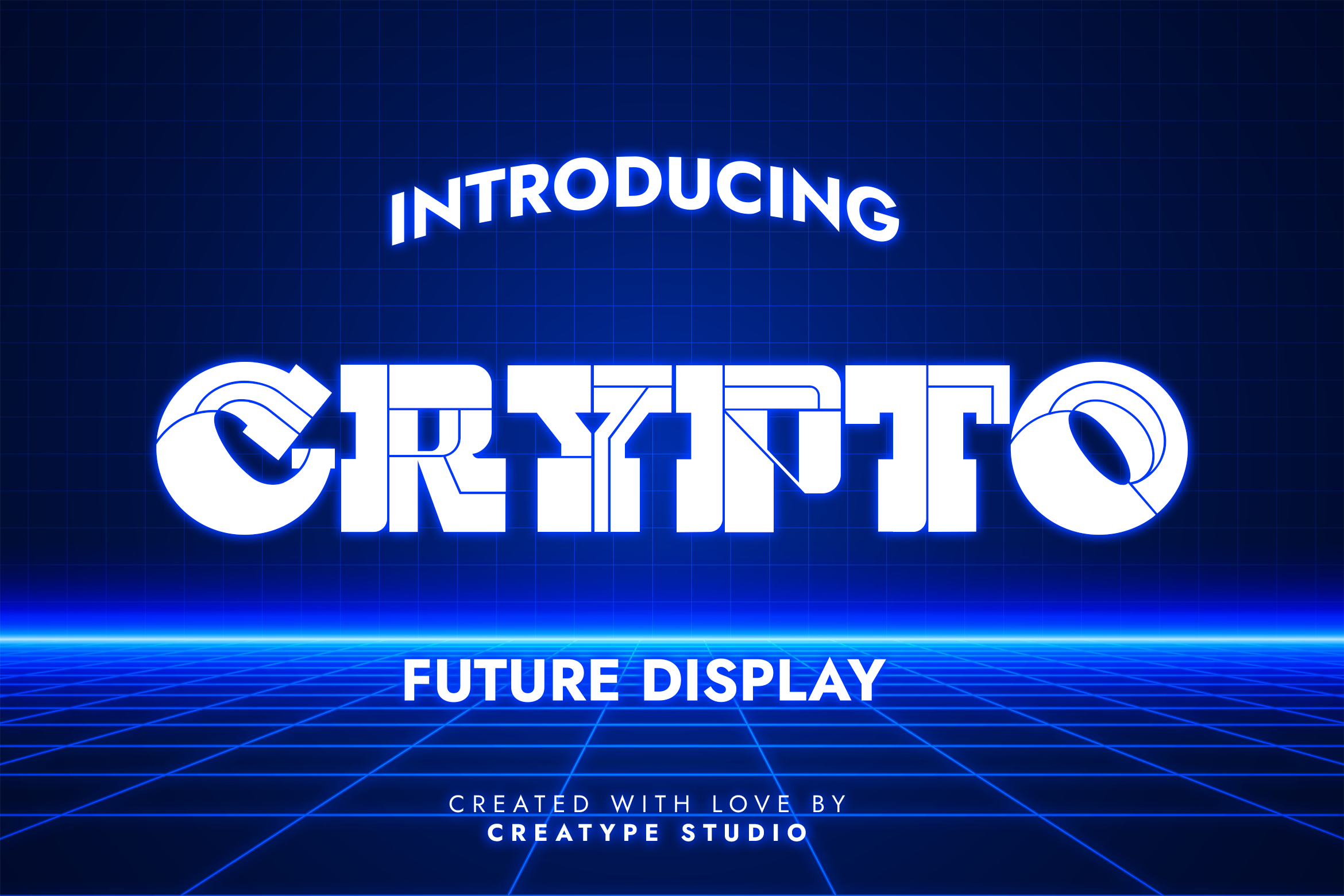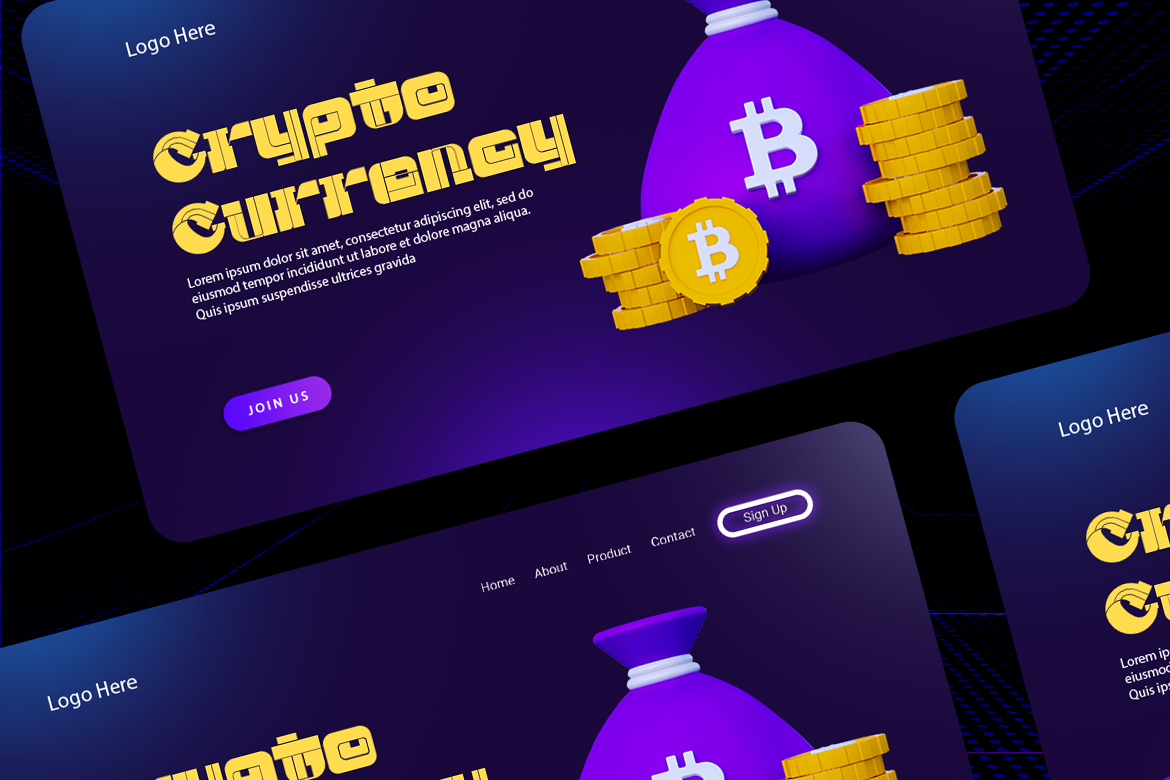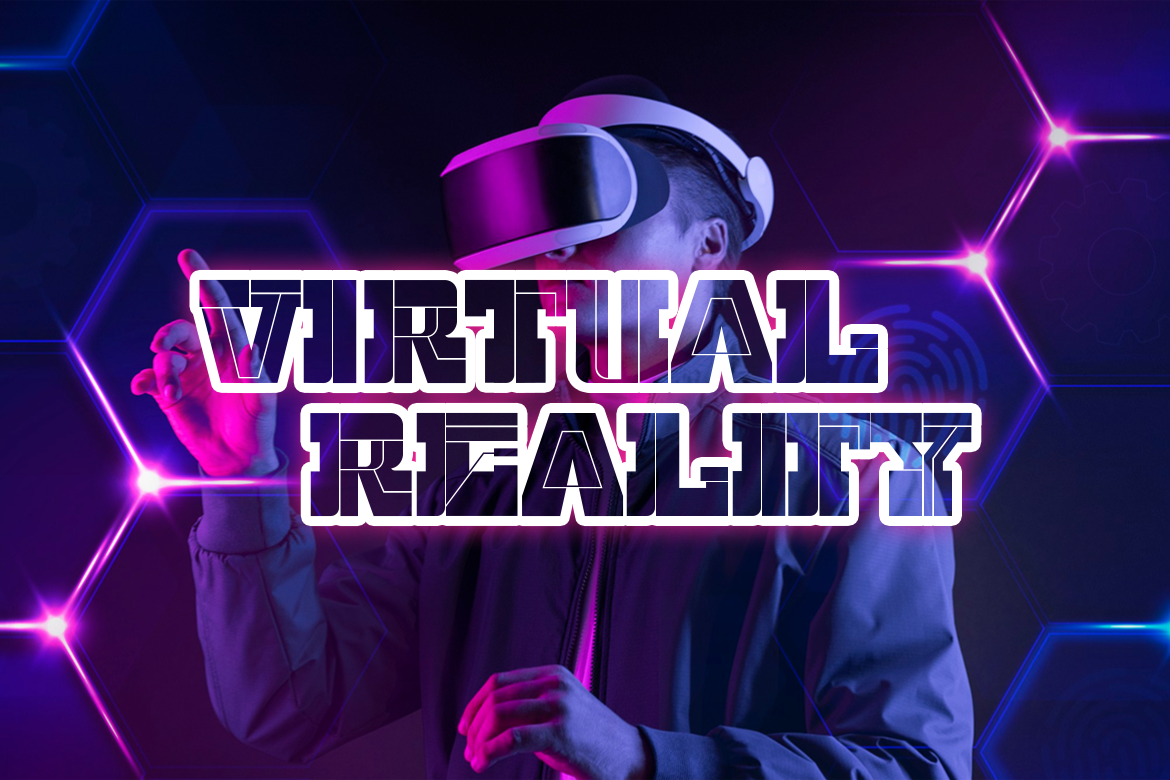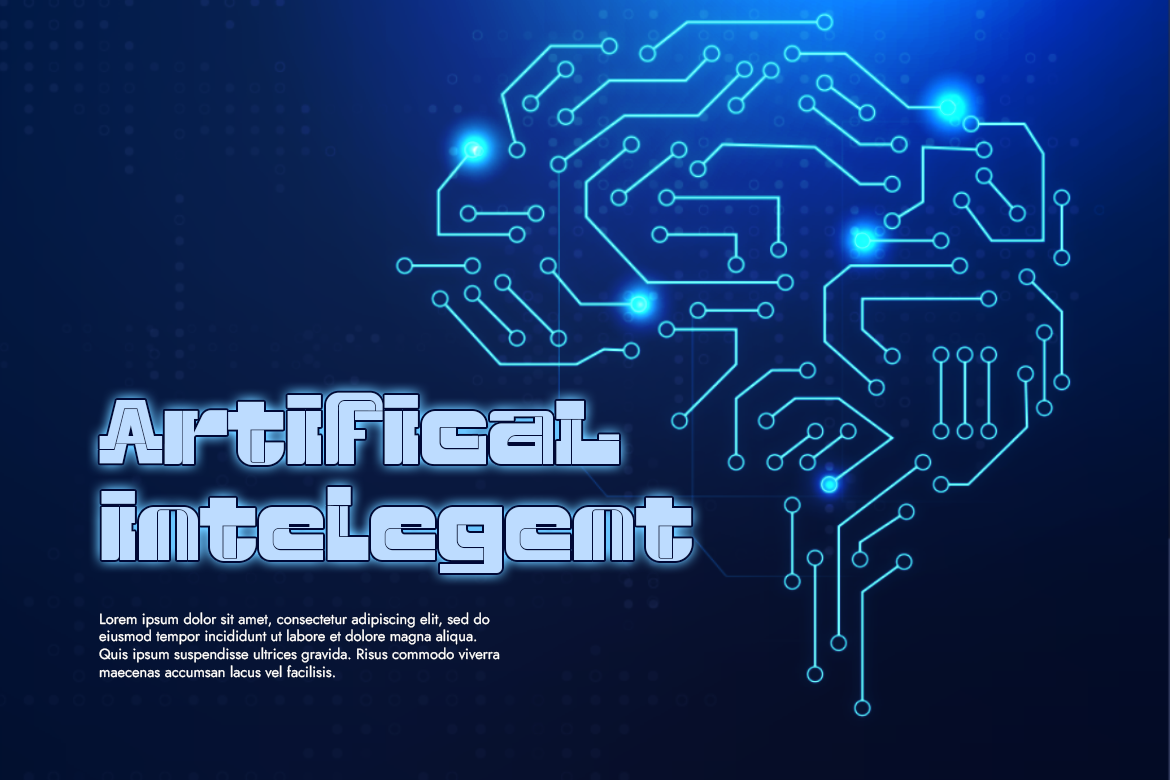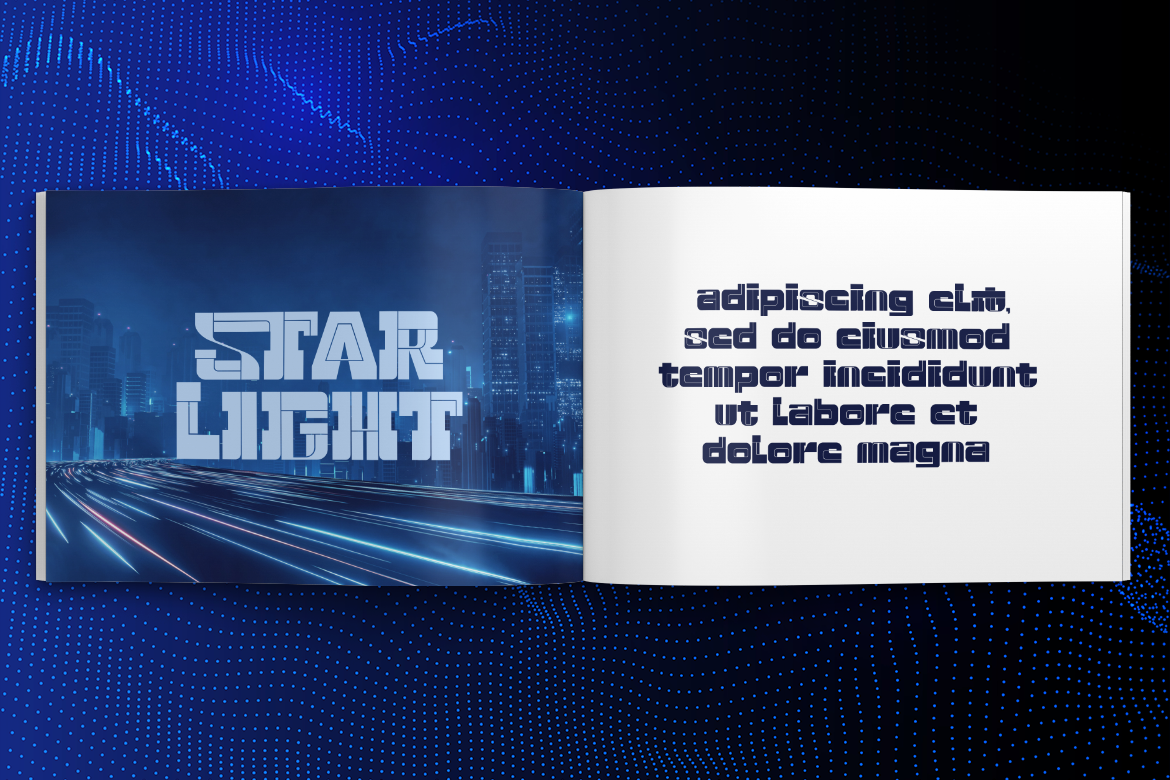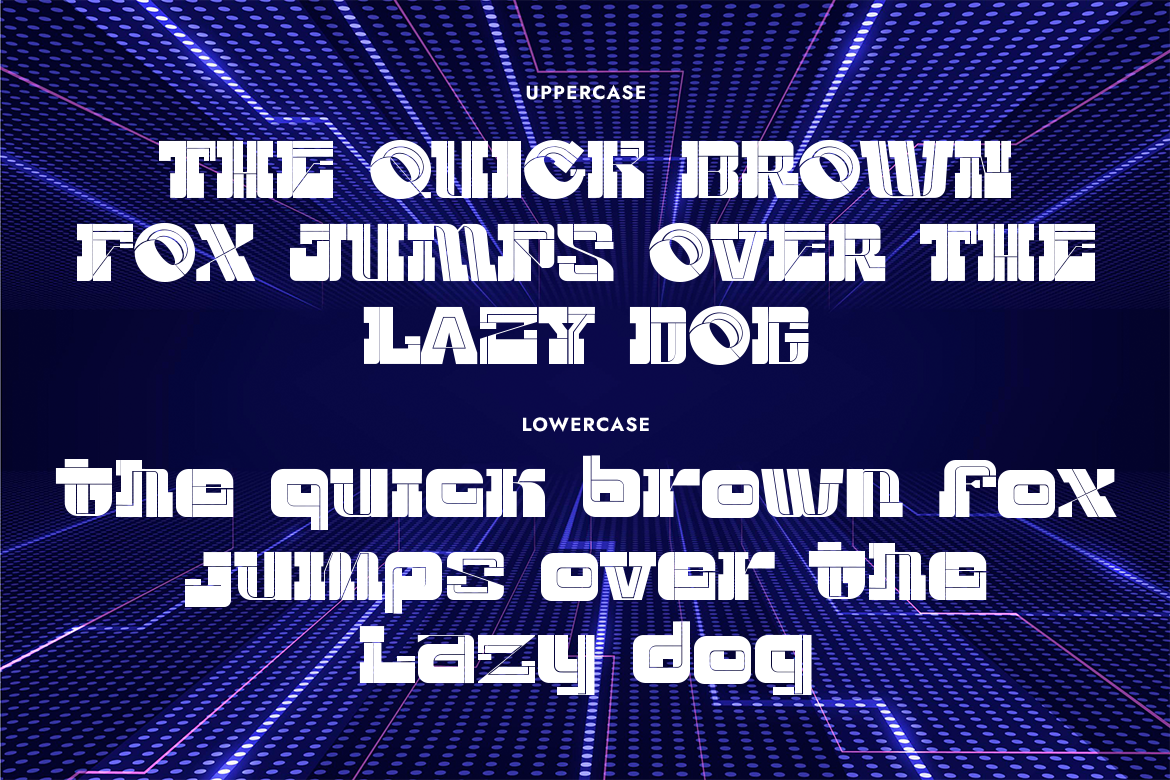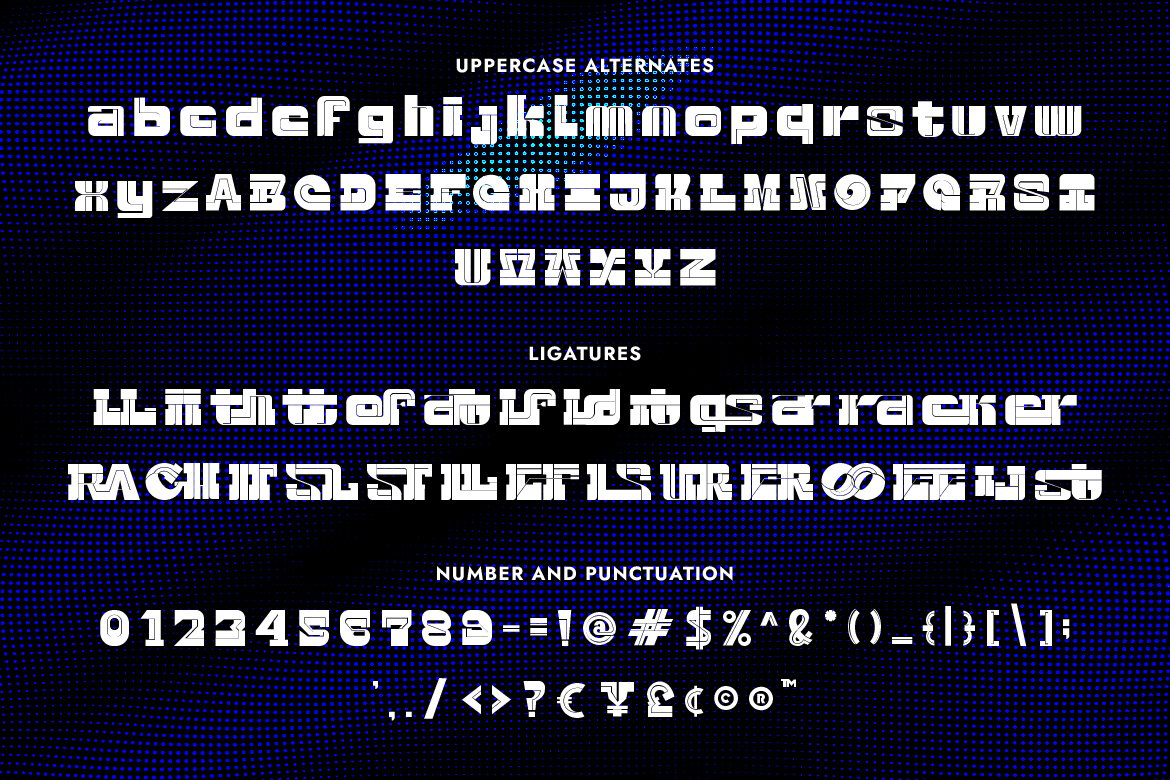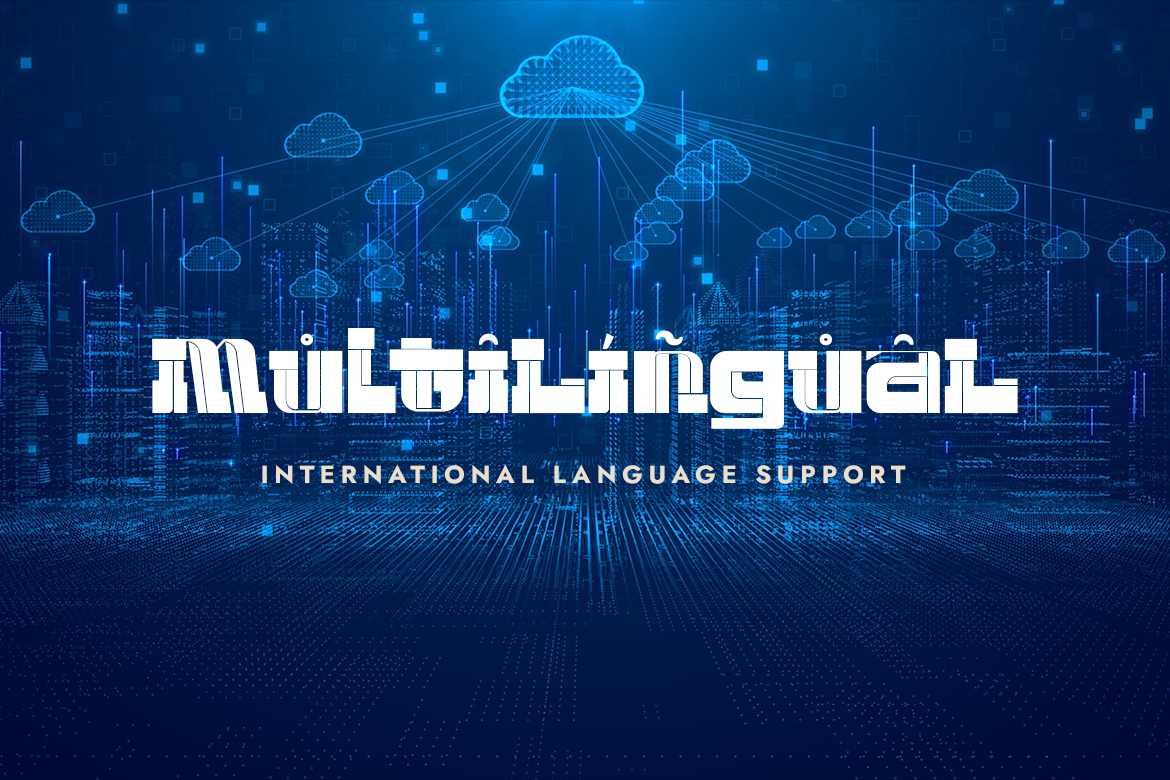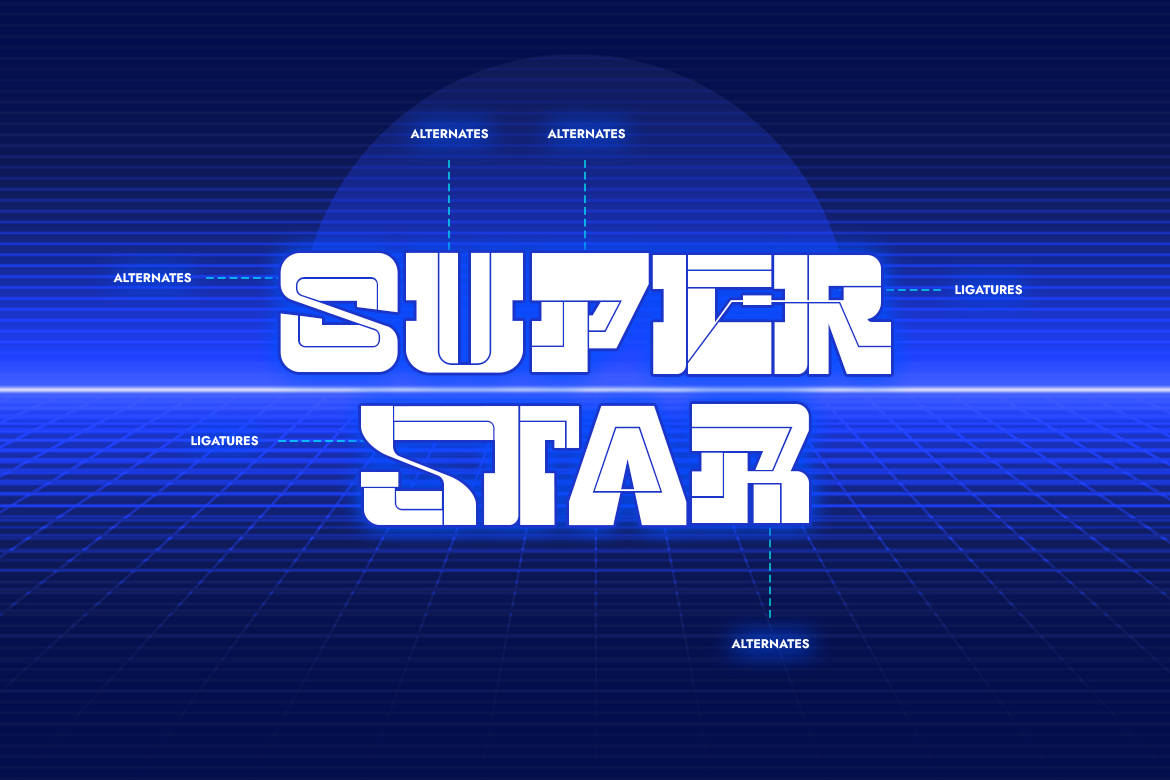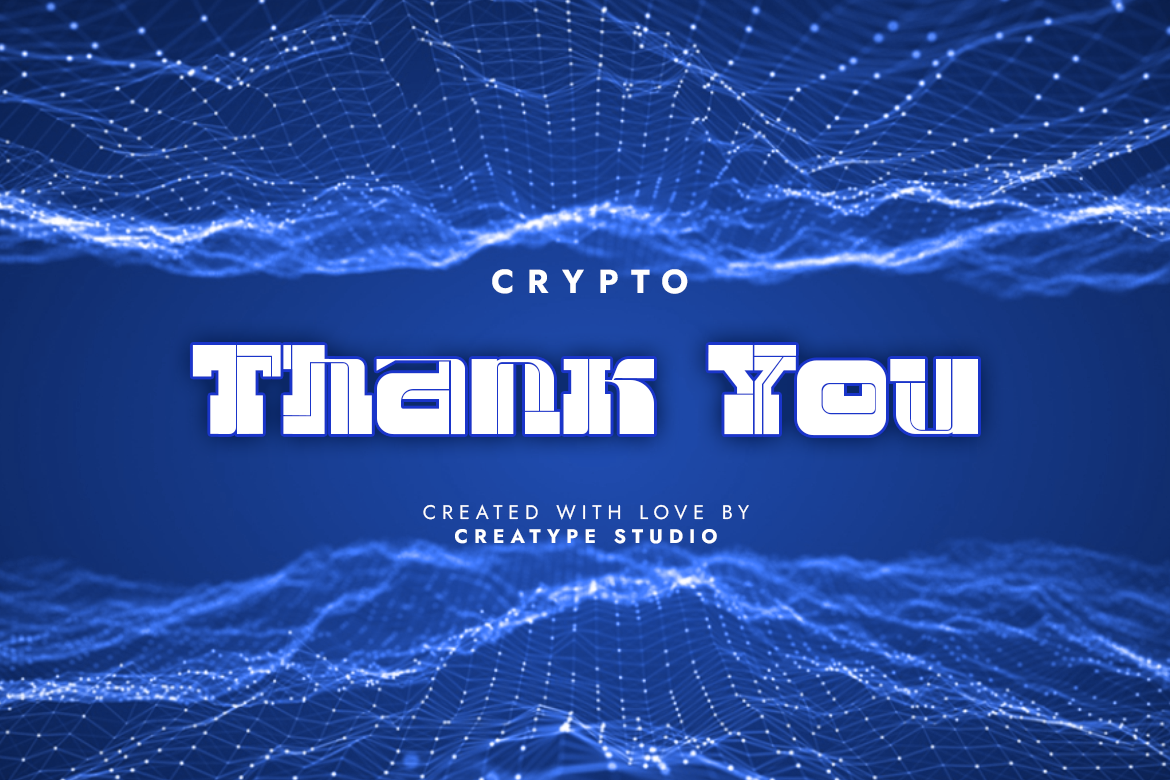
Crypto Future Display
Crypto. the Future Display typeface, is a modern and futuristic level of typeface. Show the futuristic side of your projects with Crypto.
Crypto is perfect for branding projects, logos, wedding designs, social media posts, advertisements, product packaging, product designs, label, photography, watermark, invitation, stationery, and any projects that need handwriting taste.